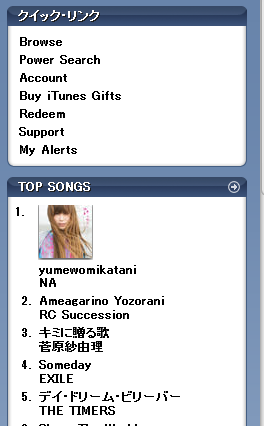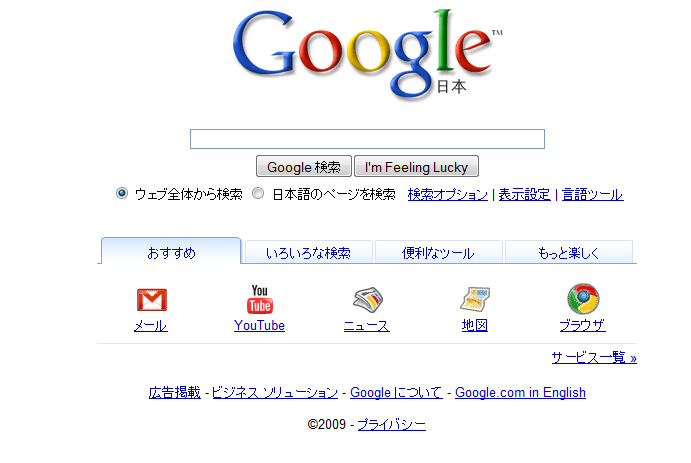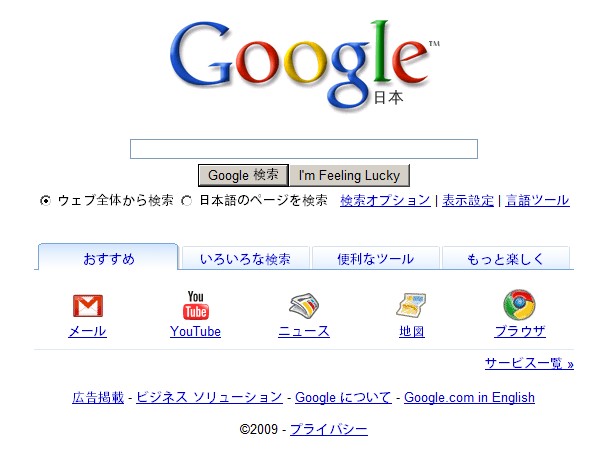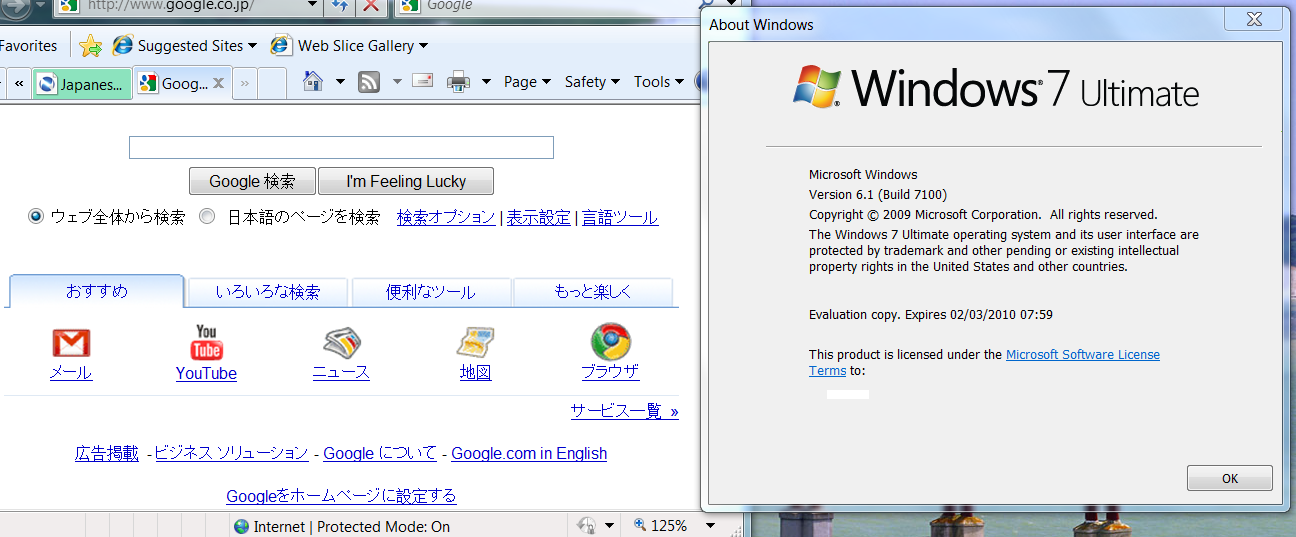
TOKYO RAIN Posted May 6, 2009 Share Posted May 6, 2009 Anyone have any recommendations on how to make Japanese fonts look better? Is there a pack that needs to be downloaded? Thanks Link to comment Share on other sites More sharing options...
Michael S Posted May 6, 2009 Share Posted May 6, 2009 Isn't it working like this? Link to comment Share on other sites More sharing options...
TOKYO RAIN Posted May 6, 2009 Author Share Posted May 6, 2009 give some more details!!! Well I came from Mac OS X where japanese fonts were very smooth and nice... On a default setup for 7100 RC it looks the same as Japanese fonts look under XP and I thought they were kinda fixed up in Vista (I think maybe as a seperate language pack download in windows update?). Have a look at these examples. Is this the way it should look normally? Link to comment Share on other sites More sharing options...
dafin0 Posted May 6, 2009 Share Posted May 6, 2009 Well I came from Mac OS X where japanese fonts were very smooth and nice...On a default setup for 7100 RC it looks the same as Japanese fonts look under XP and I thought they were kinda fixed up in Vista (I think maybe as a seperate language pack download in windows update?). Have a look at these examples. Is this the way it should look normally? doesnt look like "ClearType" is work or on, try this go to Control Panel\All Control Panel Items\Fonts.. on the left hand side you should see something called "adjust ClearType text" and just follow the wizard Link to comment Share on other sites More sharing options...
Michael S Posted May 6, 2009 Share Posted May 6, 2009 Well I came from Mac OS X where japanese fonts were very smooth and nice...On a default setup for 7100 RC it looks the same as Japanese fonts look under XP and I thought they were kinda fixed up in Vista (I think maybe as a seperate language pack download in windows update?). Have a look at these examples. Is this the way it should look normally? I checked em out carefully and there's small difference. I'm running Windows 7 RC 7100 x64 English. Link to comment Share on other sites More sharing options...
The_Decryptor Veteran Posted May 6, 2009 Veteran Share Posted May 6, 2009 It's because they have embedded bitmaps, they're rendered straight to the screen without hinting or antialiasing or all the other stuff normal outline fonts go through. There is a font in Vista and 7 that doesn't use them though, it uses normal hinting and antialiasing like the other fonts, it's called Meiryo. Link to comment Share on other sites More sharing options...
TOKYO RAIN Posted May 6, 2009 Author Share Posted May 6, 2009 It's because they have embedded bitmaps, they're rendered straight to the screen without hinting or antialiasing or all the other stuff normal outline fonts go through.There is a font in Vista and 7 that doesn't use them though, it uses normal hinting and antialiasing like the other fonts, it's called Meiryo. Thanks for this. I had a look at that font and it does indeed look nice but for the life of me I can't figure out how to tell windows "when rendering japanese use these fonts instead". Is it application specific? Link to comment Share on other sites More sharing options...
ZeusII Posted May 6, 2009 Share Posted May 6, 2009 In my comp, after installing Office 2007 the fonts looked better overall... (of course, I selected the optional "Japanese Font" in the installer) (this is Vista, but looks exactly the same in 7) ...but there are some sites that are forcing an older font and then looking bad (like Impress Watch). also, if you install Safari for Windows you'll get that "heavy-aliased" look from MacOS (at least on websites) Link to comment Share on other sites More sharing options...
Lord Ba'al Posted May 7, 2009 Share Posted May 7, 2009 I know this myself. The problem is with MS Gothic and MS Mincho, which look really ugly at lower font sizes (below 18pt), because they have no anti-aliasing there :x You can verify this for yourself if you look at them in the font viewer. The solution for this is to simply use the "Meiryo" font for all Japanese texts. It looks fine at all sizes and is included with Win7 :cool: Link to comment Share on other sites More sharing options...
TOKYO RAIN Posted May 7, 2009 Author Share Posted May 7, 2009 I know this myself.The problem is with MS Gothic and MS Mincho, which look really ugly at lower font sizes (below 18pt), because they have no anti-aliasing there :x You can verify this for yourself if you look at them in the font viewer. The solution for this is to simply use the "Meiryo" font for all Japanese texts. It looks fine at all sizes and is included with Win7 :cool: What I'm trying achieve is for OS and applications to use that meiryo font by default when displaying ANY japanese text. Not just when I'm personally composing something and have control over the font. For example, when I go into Windows Live Mail client the meiryo font is used and it looks fantastic. If I copy and paste into notepad it goes back to that old crappy font unless I change it manually in notepad in the font menu. I'd like meiryo to be used by default system-wide when displaying Japanese. Do Windows OS' not work this way? Or is it a matter of applications "catching up" to the current font standard of the latest OS? Thanks Link to comment Share on other sites More sharing options...
Lord Ba'al Posted May 7, 2009 Share Posted May 7, 2009 What I'm trying achieve is for OS and applications to use that meiryo font by default when displaying ANY japanese text. Not just when I'm personally composing something and have control over the font.For example, when I go into Windows Live Mail client the meiryo font is used and it looks fantastic. If I copy and paste into notepad it goes back to that old crappy font unless I change it manually in notepad in the font menu. I'd like meiryo to be used by default system-wide when displaying Japanese. Do Windows OS' not work this way? Or is it a matter of applications "catching up" to the current font standard of the latest OS? Yes, that's a problem indeed, and there are no straight-forward settings to change that. To stop Windows from using the ugly fonts, you need to do some registry edits. I've build myself a .reg file that does all the registry work neccessary :cool: Simply execute the FontFix.reg file in the .zip file. Next, copy the four Global*.* files to your C:\Windows\Fonts directory, overwriting the ones there (they tell Windows which fonts to use). After you did both and rebooted, you'll find that Windows won't use any ugly fonts anymore :yes: oh, and btw, if you want to download the Japanese RC - download it from the Windows Ecosystem on Connect. I got 1.5 MB/s there today when I downloaded it :cool: Link to comment Share on other sites More sharing options...